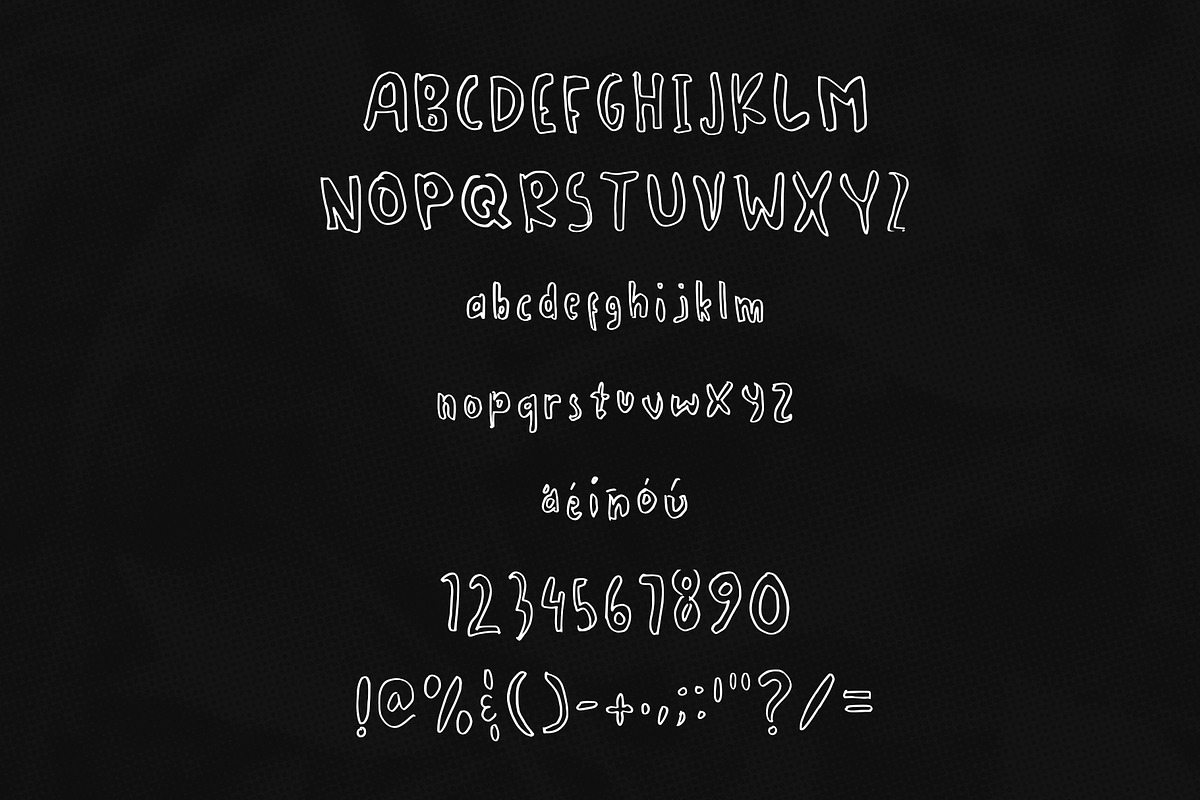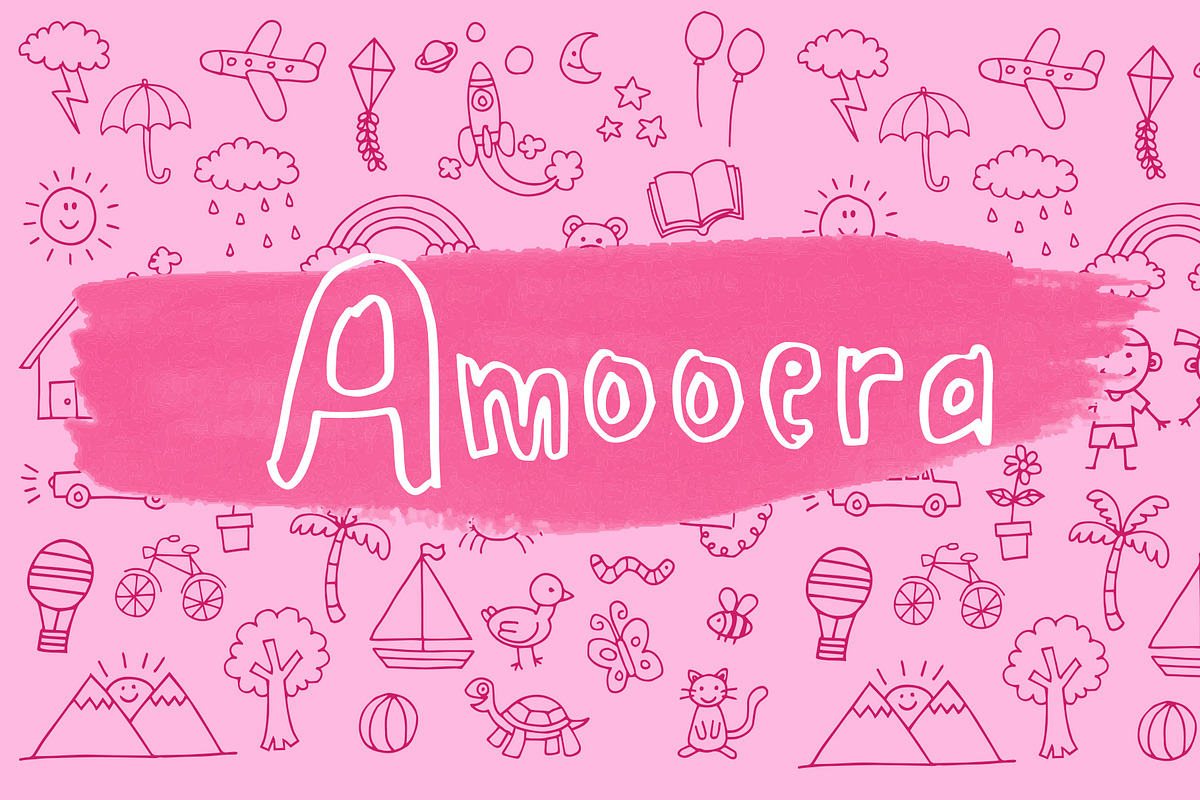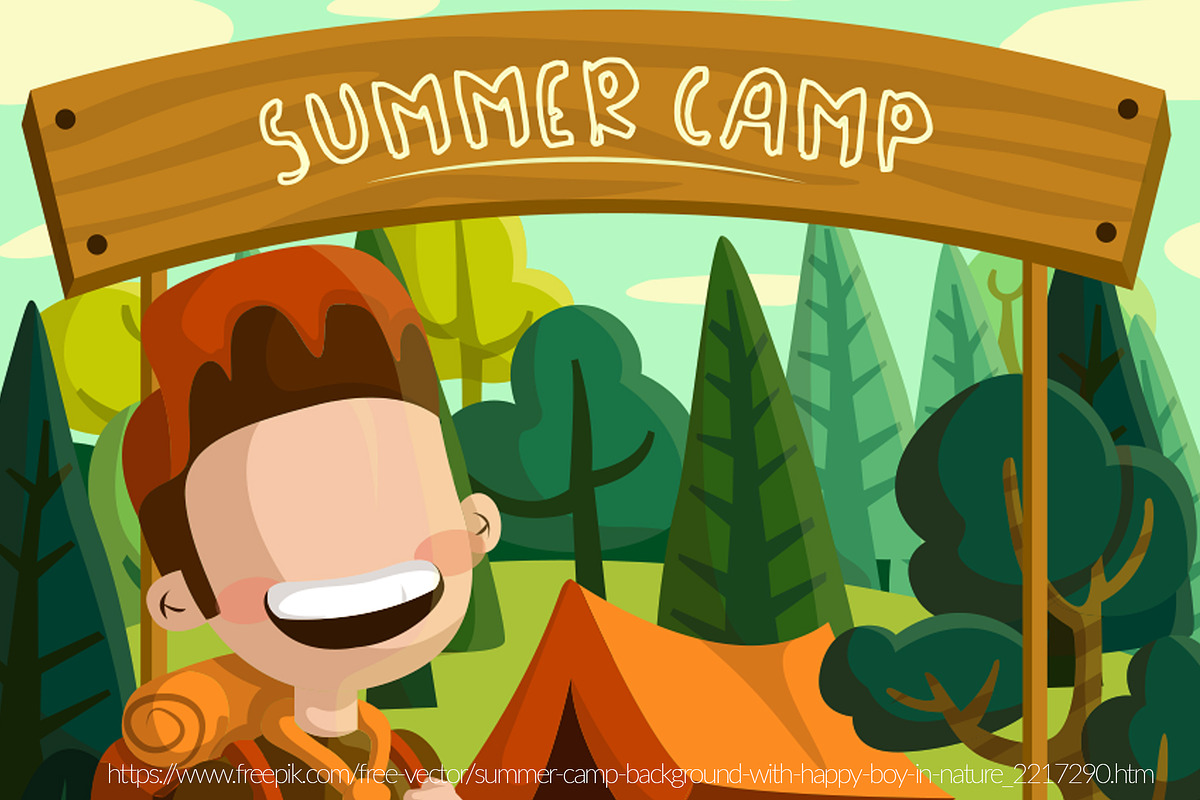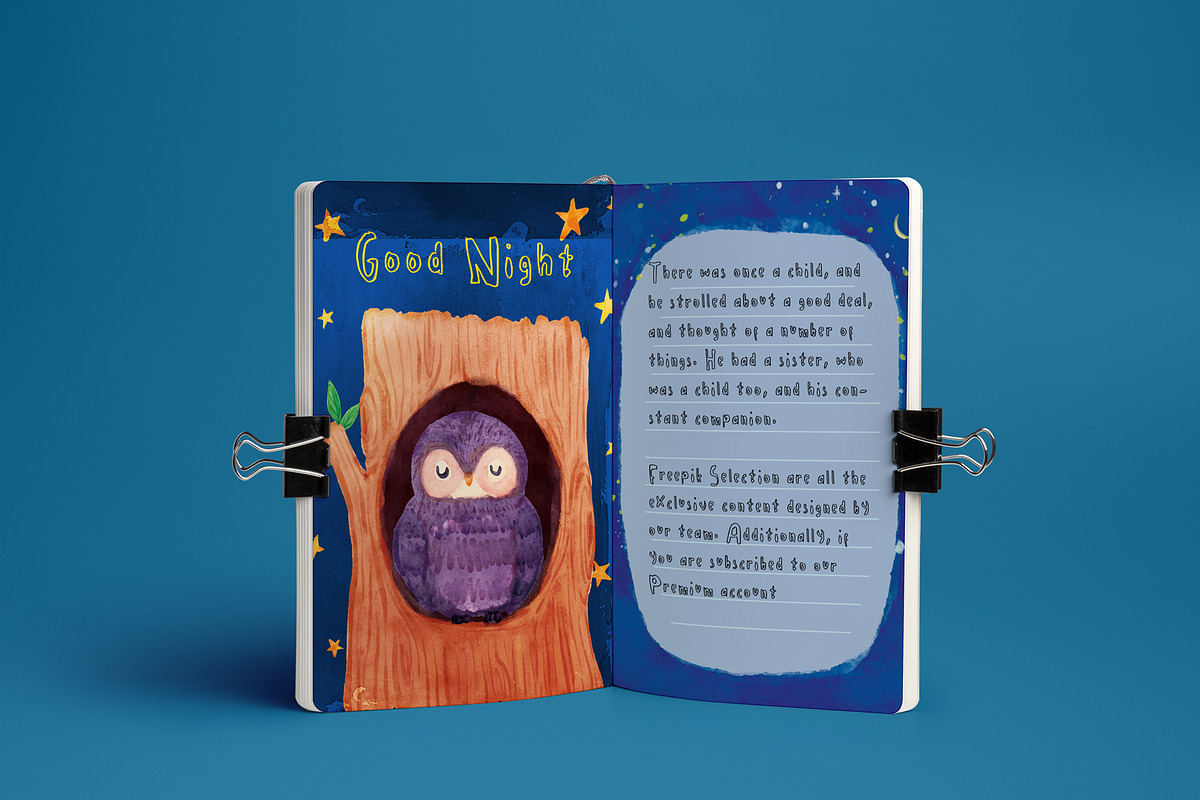
Amooera Handdrawn font childish fun
Sans serif hand-drawn display font called Amooera was designed for childish and other style also fit for Kids story and book.
Why Amooera Handdrawn font childish fun is worth a look
Amooera Handdrawn font childish fun by NadaNora fits naturally into Branding, posters, packaging, typography.